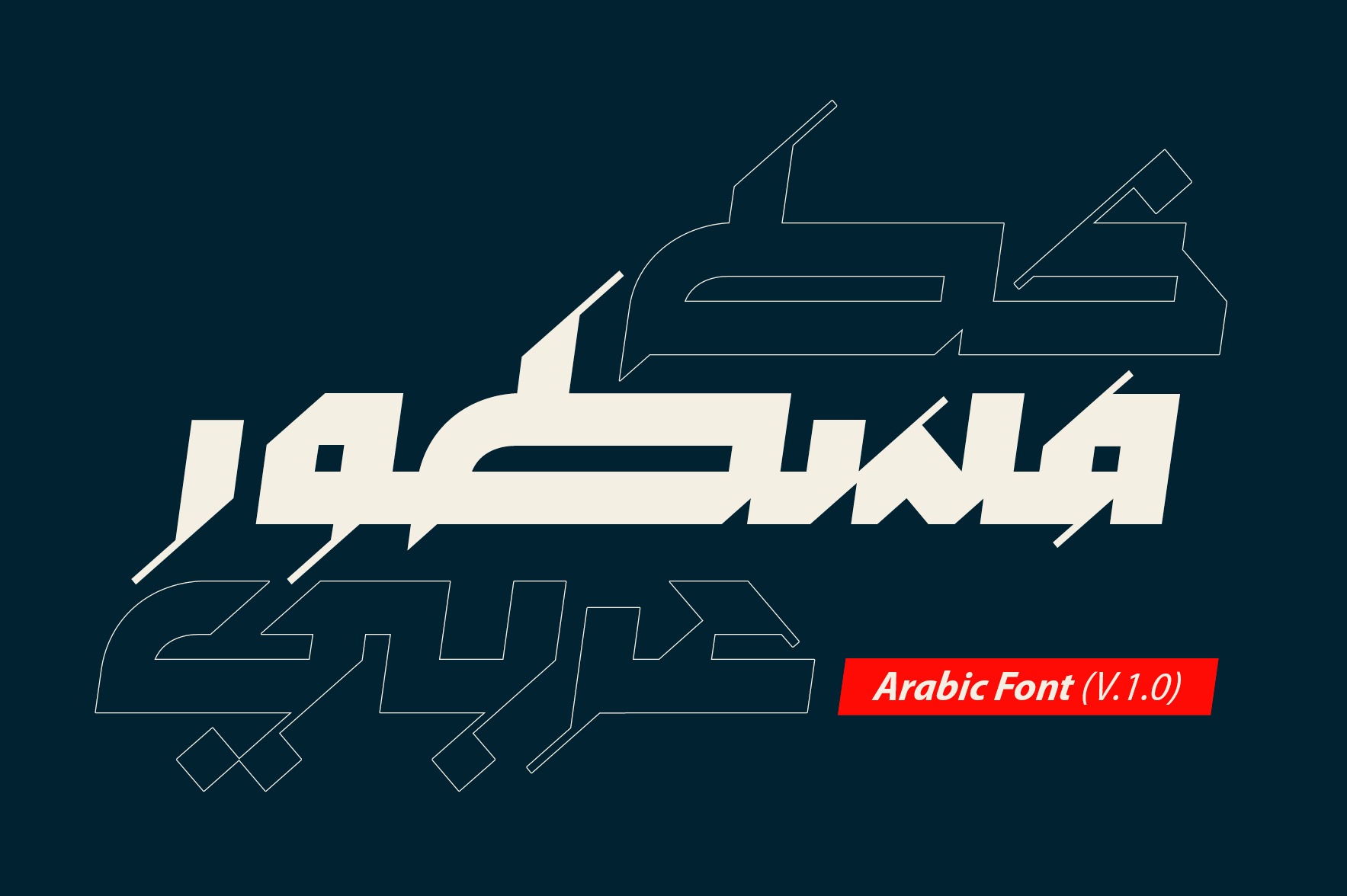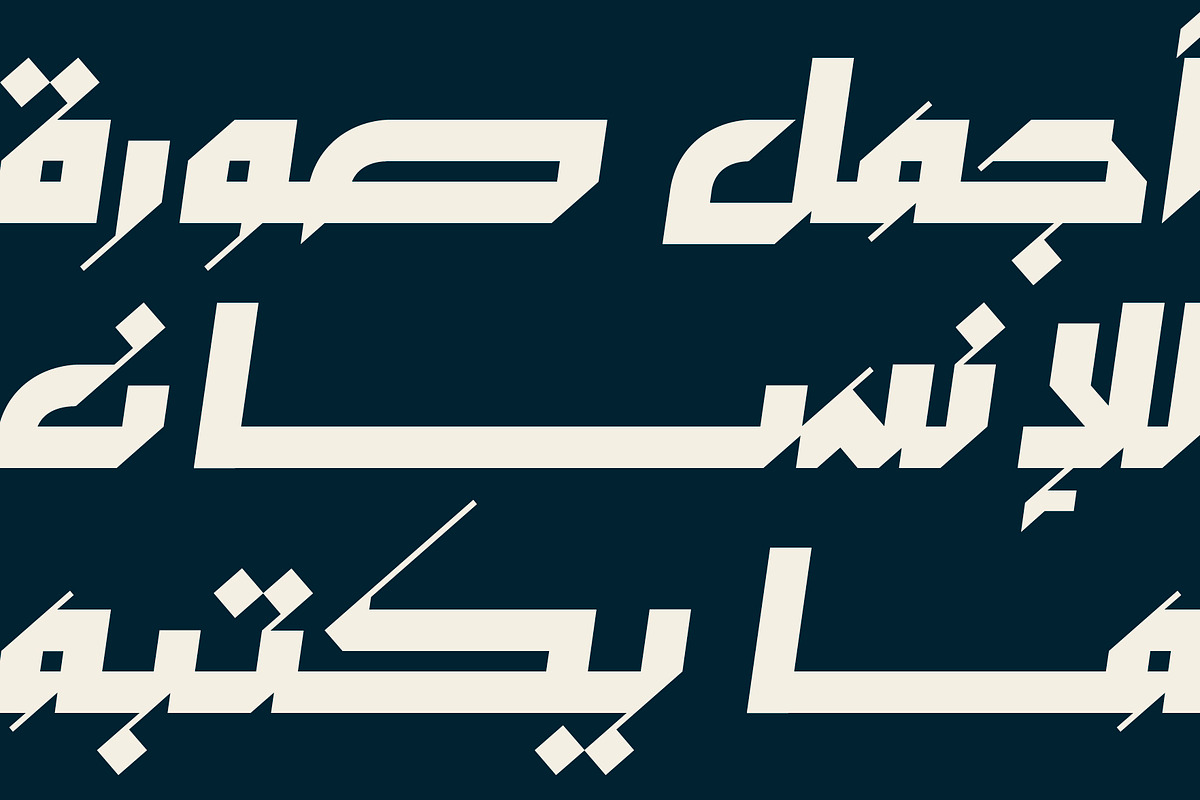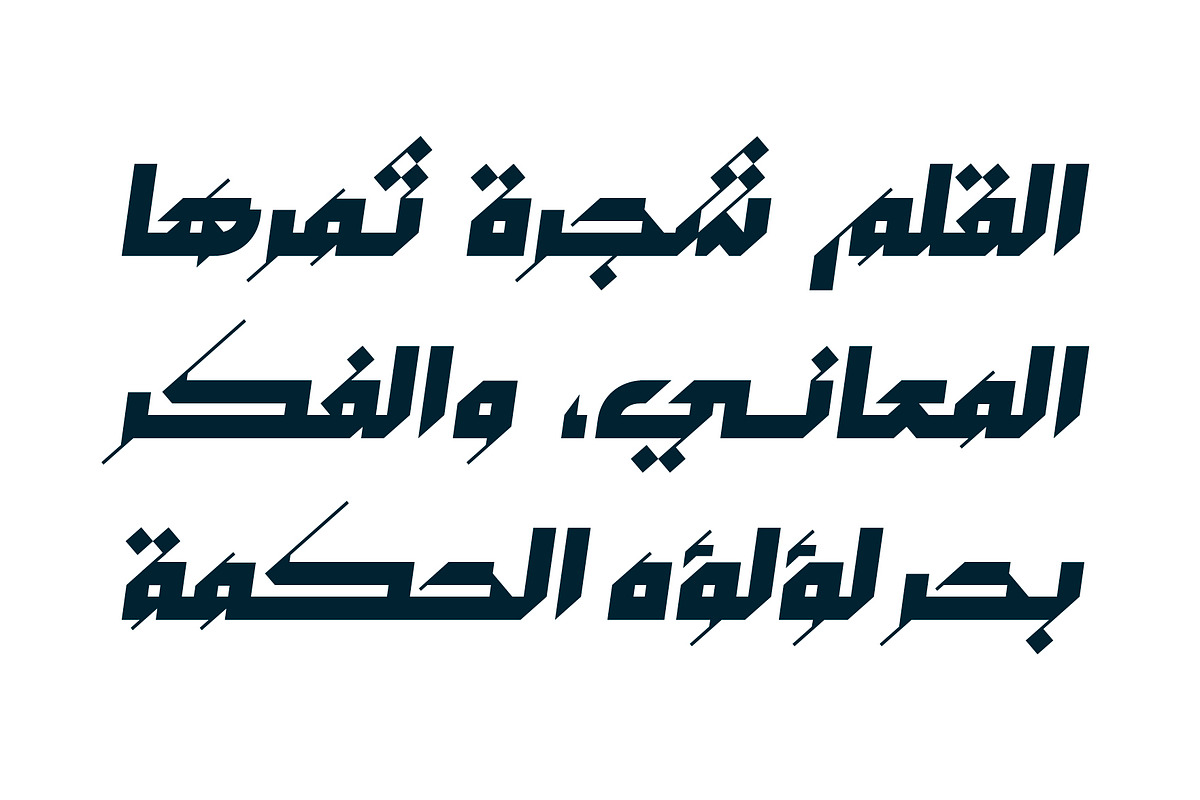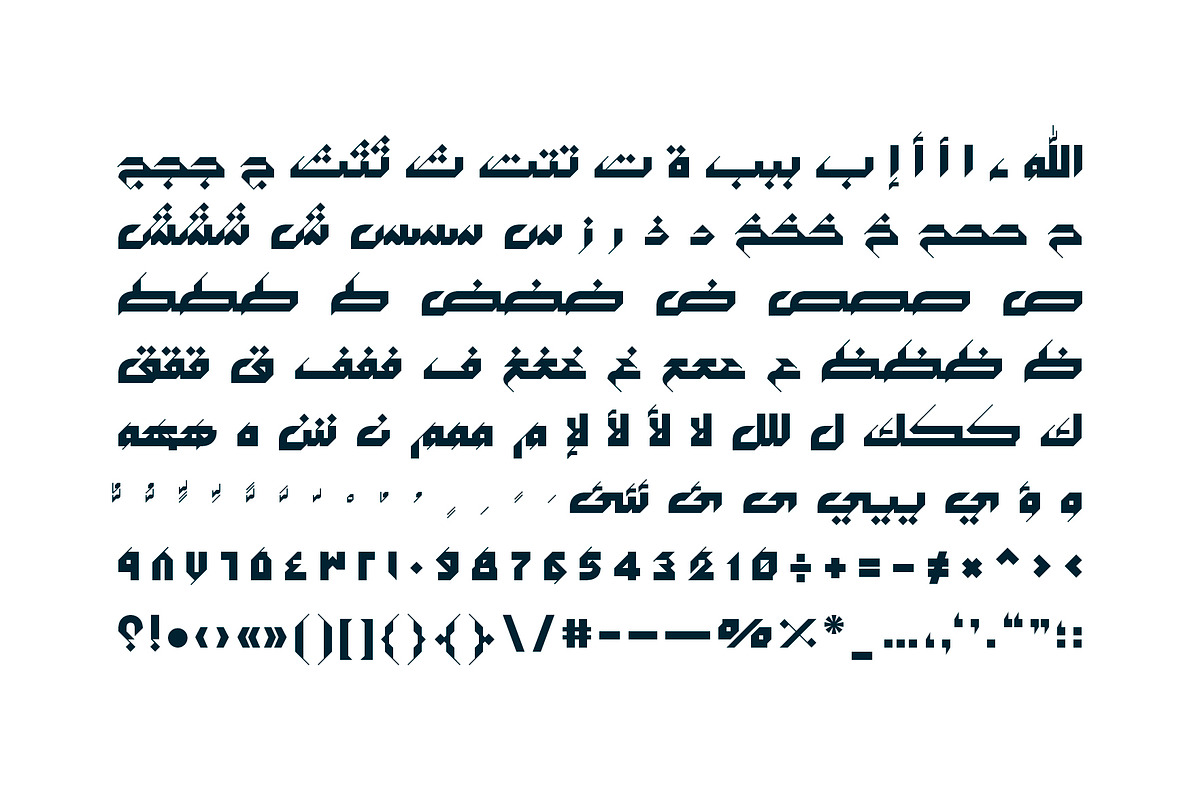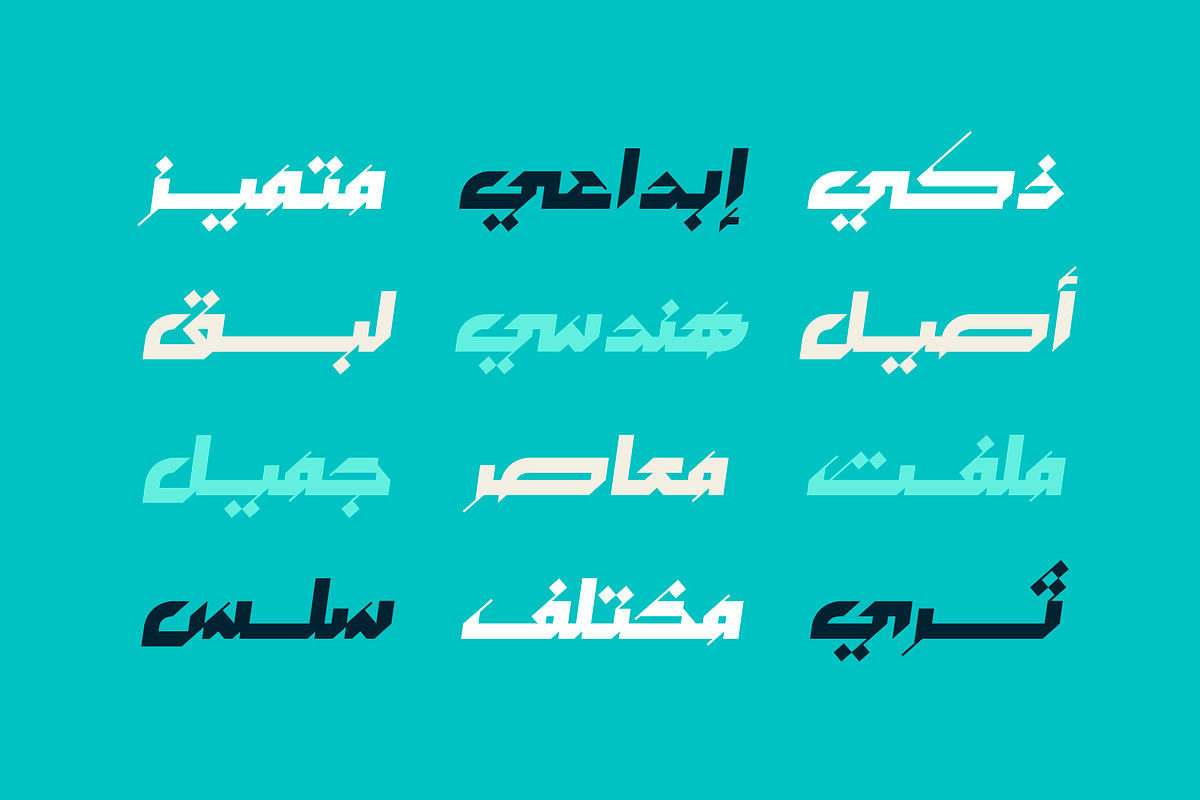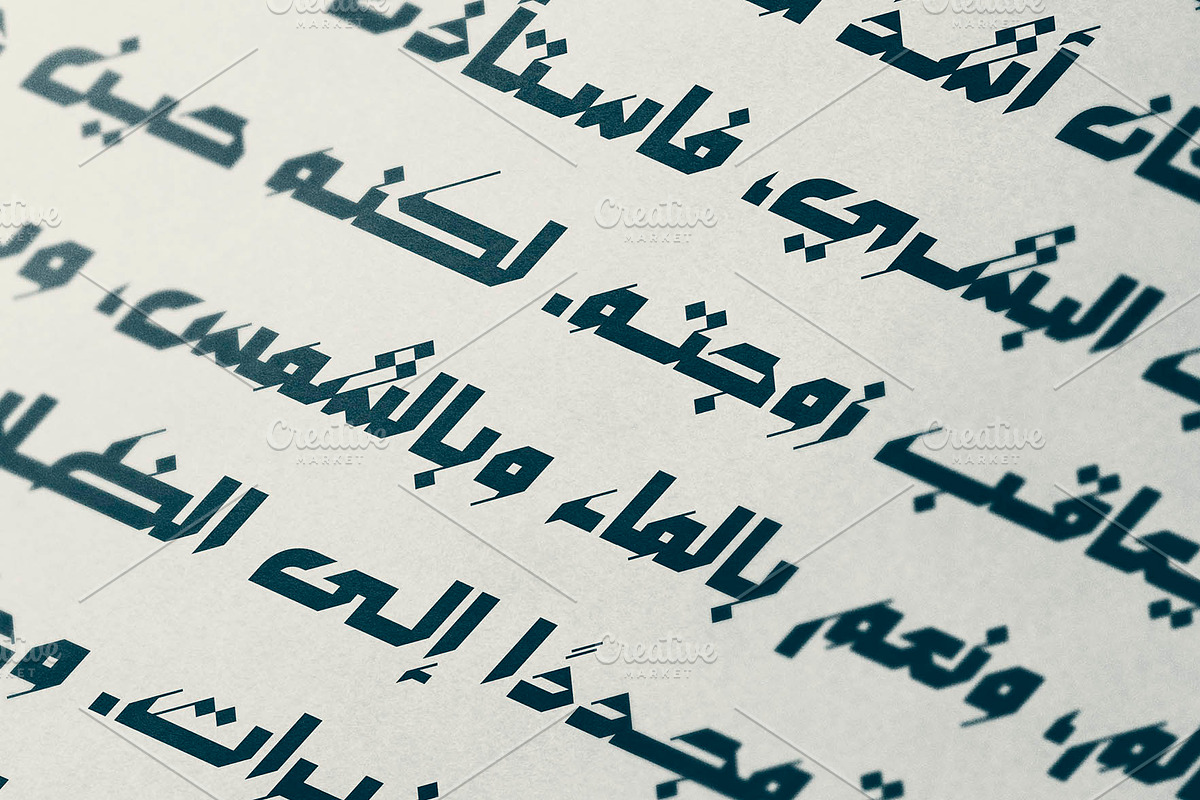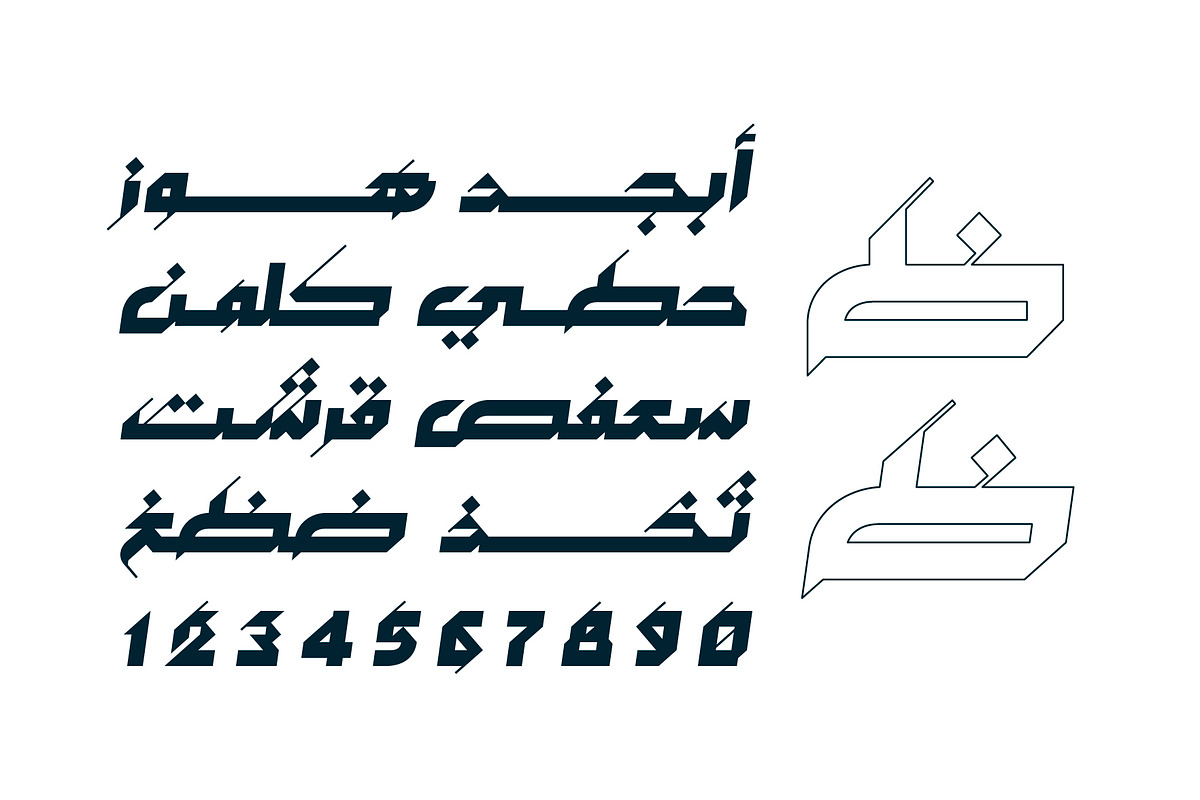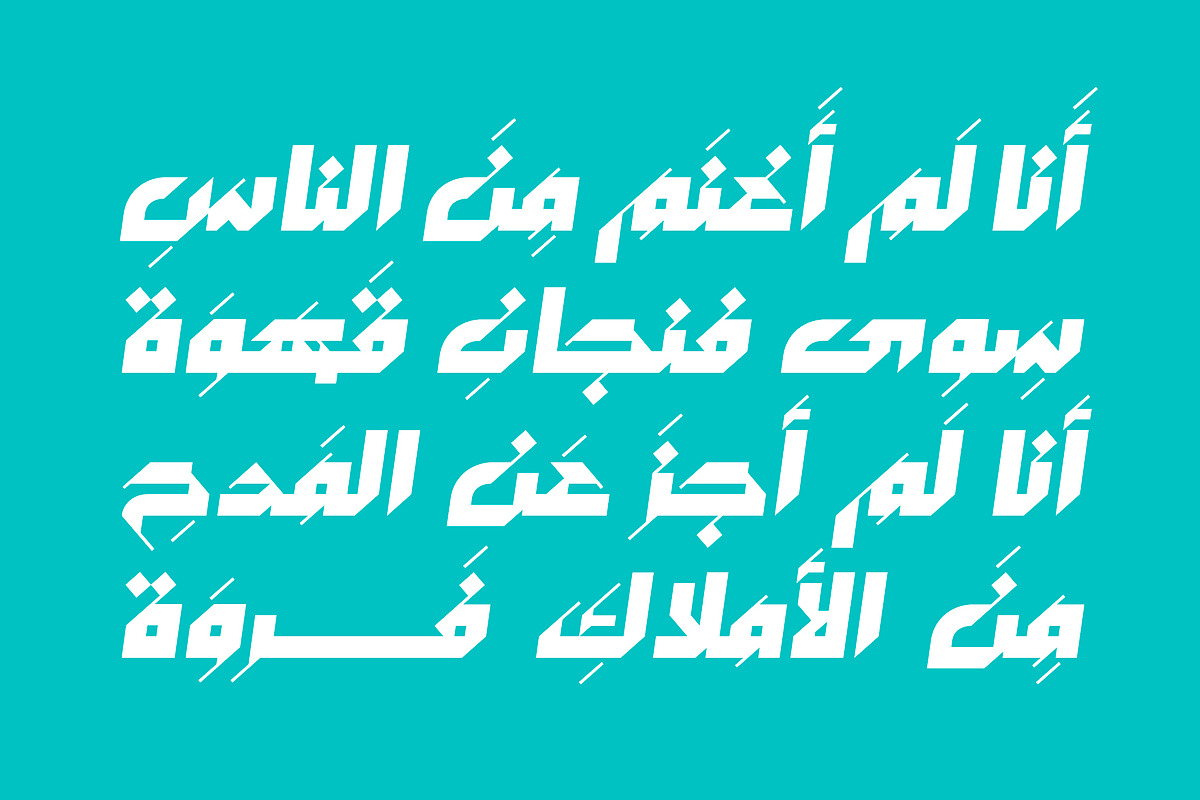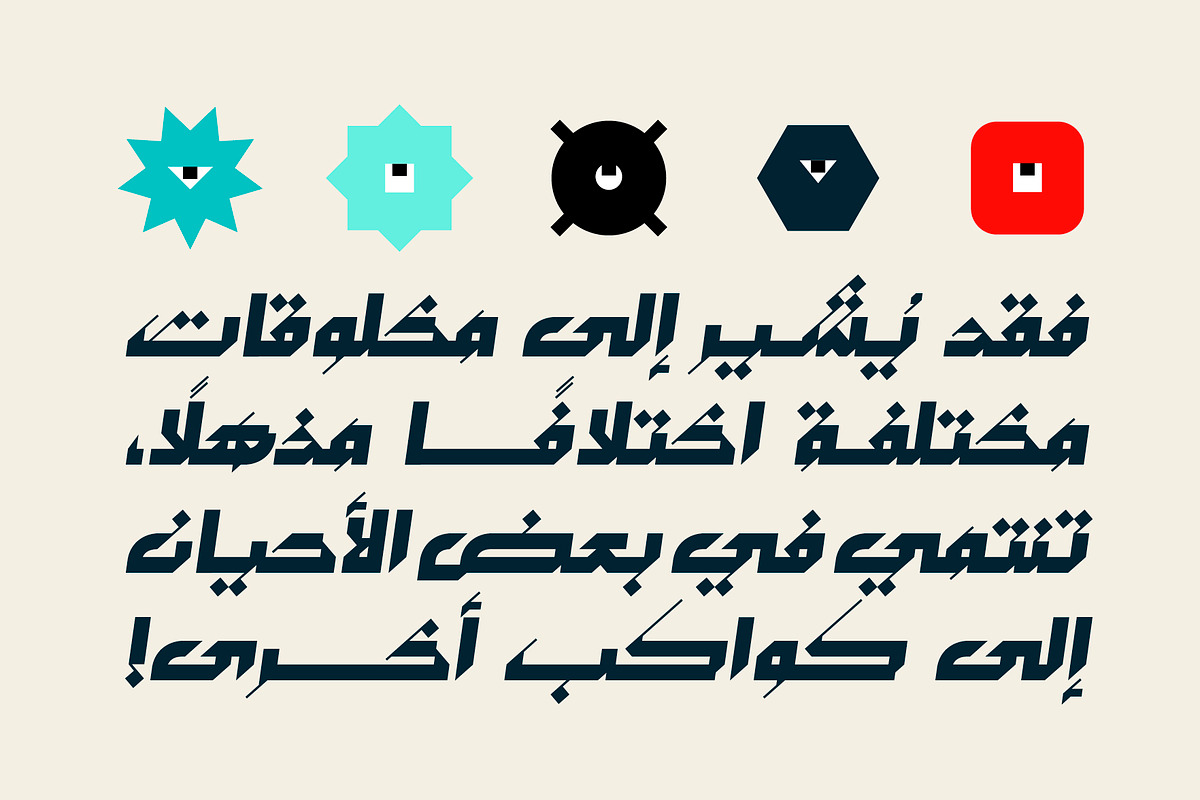
Mustoor - Arabic Font
Mustoor (the Arabic for 'Lined') is an Arabic display typeface that incorporates calligraphic letterforms, creatively reimagined within a geometric framework. The font features two styles (Black and Oblique) and it is suitable for contemporary design projects including web, publication, and print. Mustoor supports Windows, macOS and mobile applications.